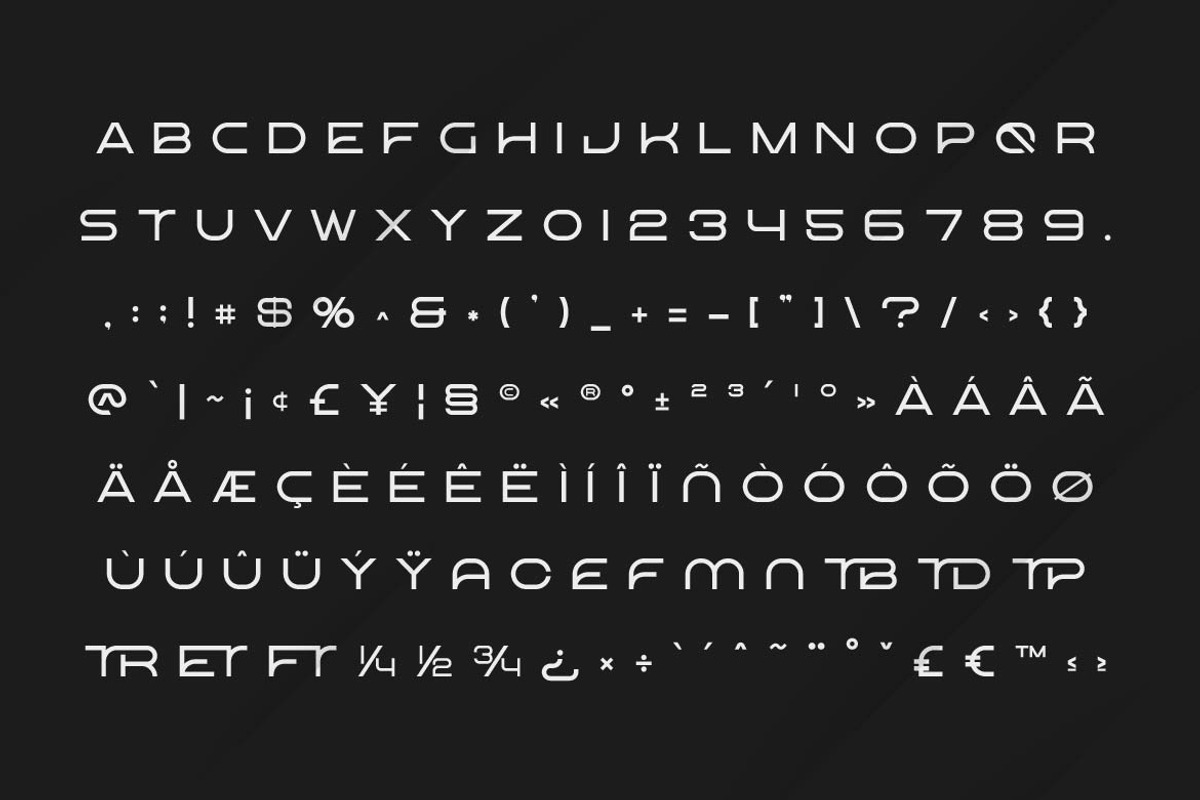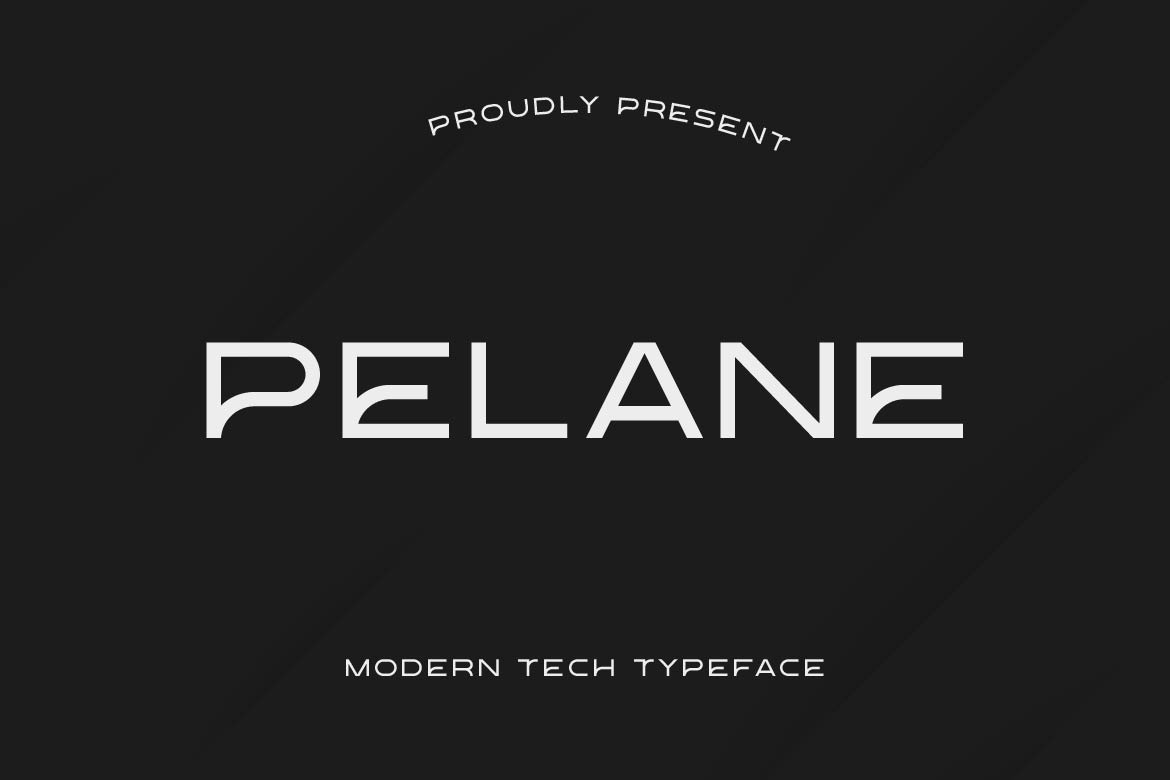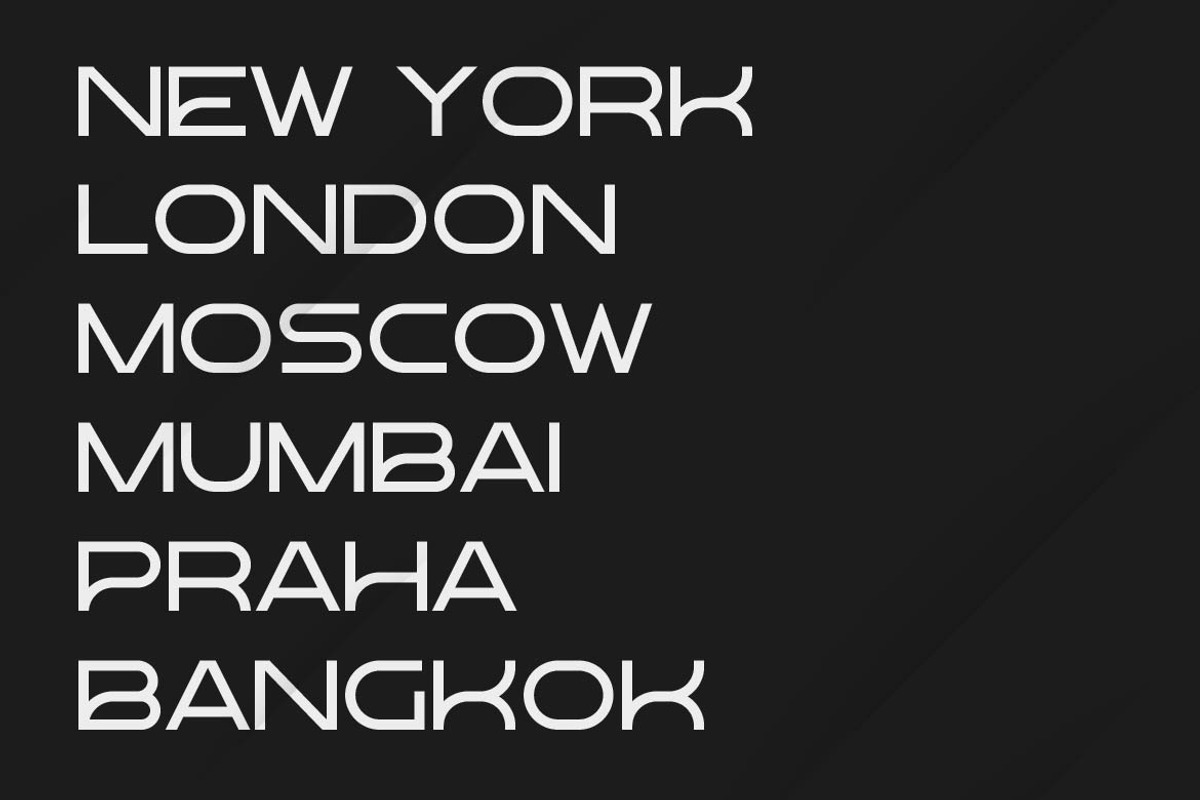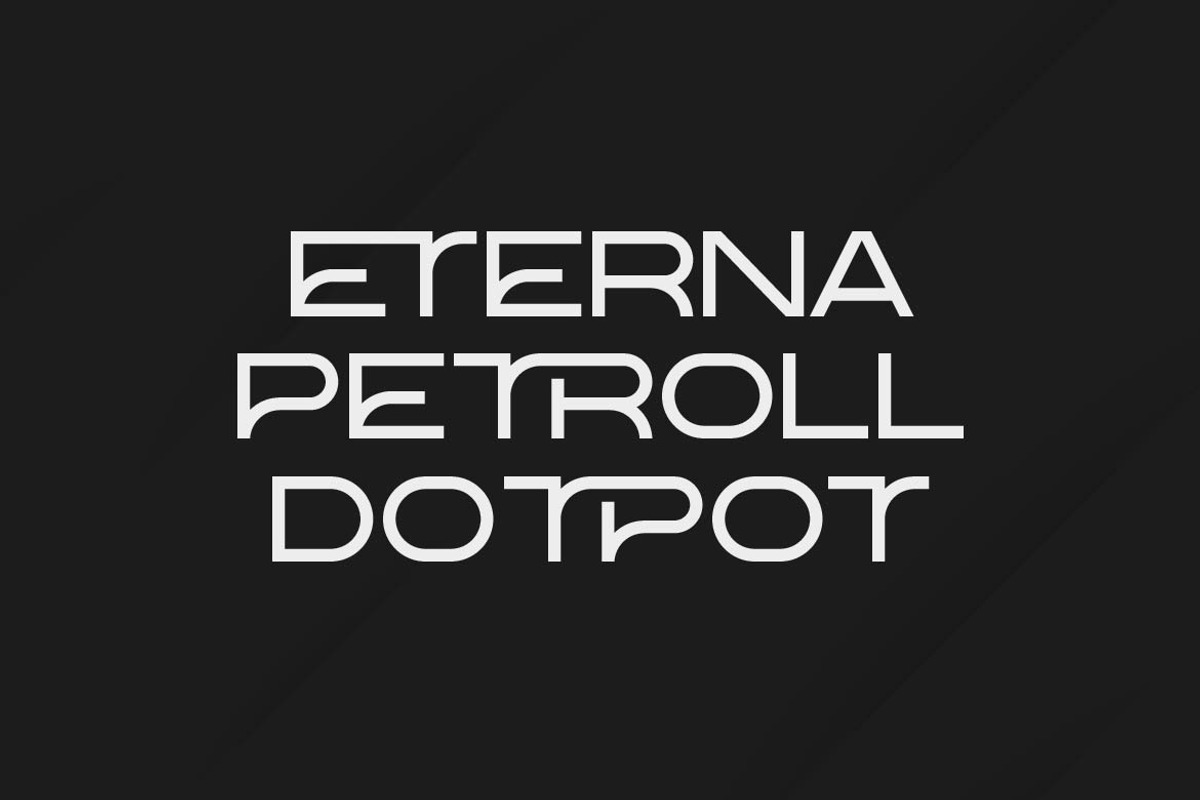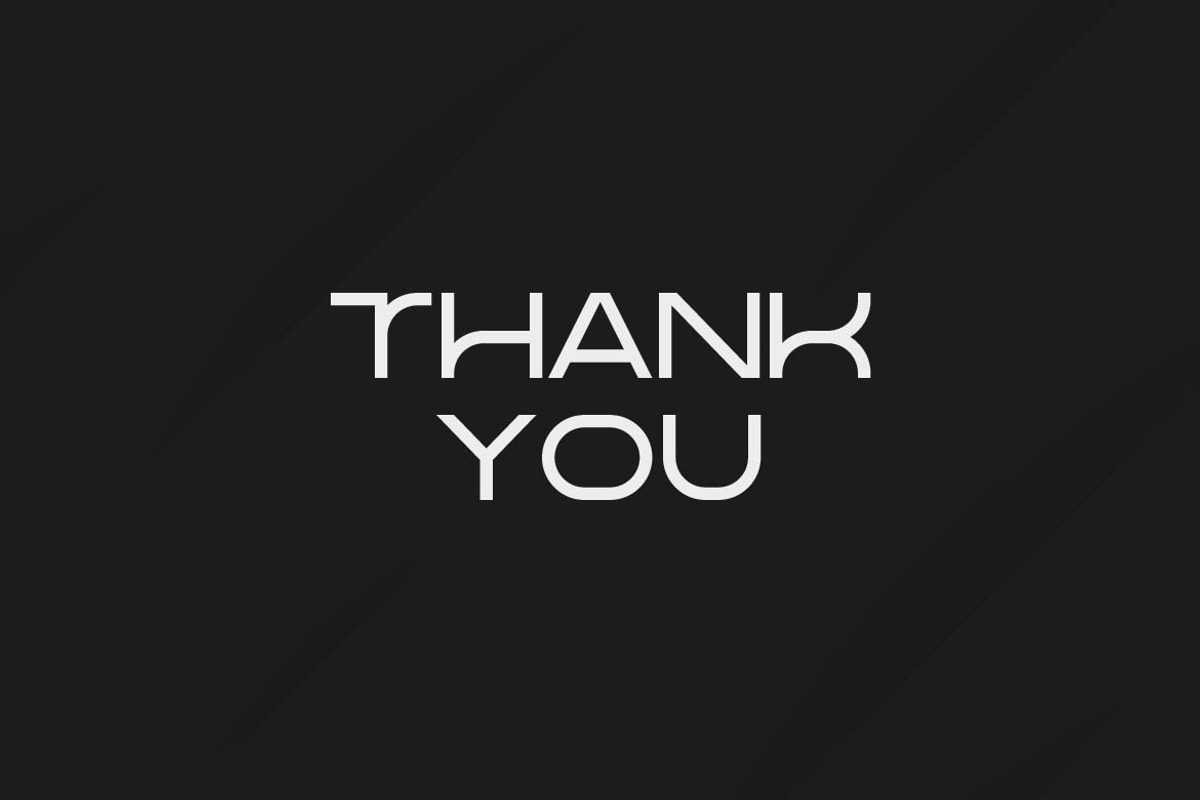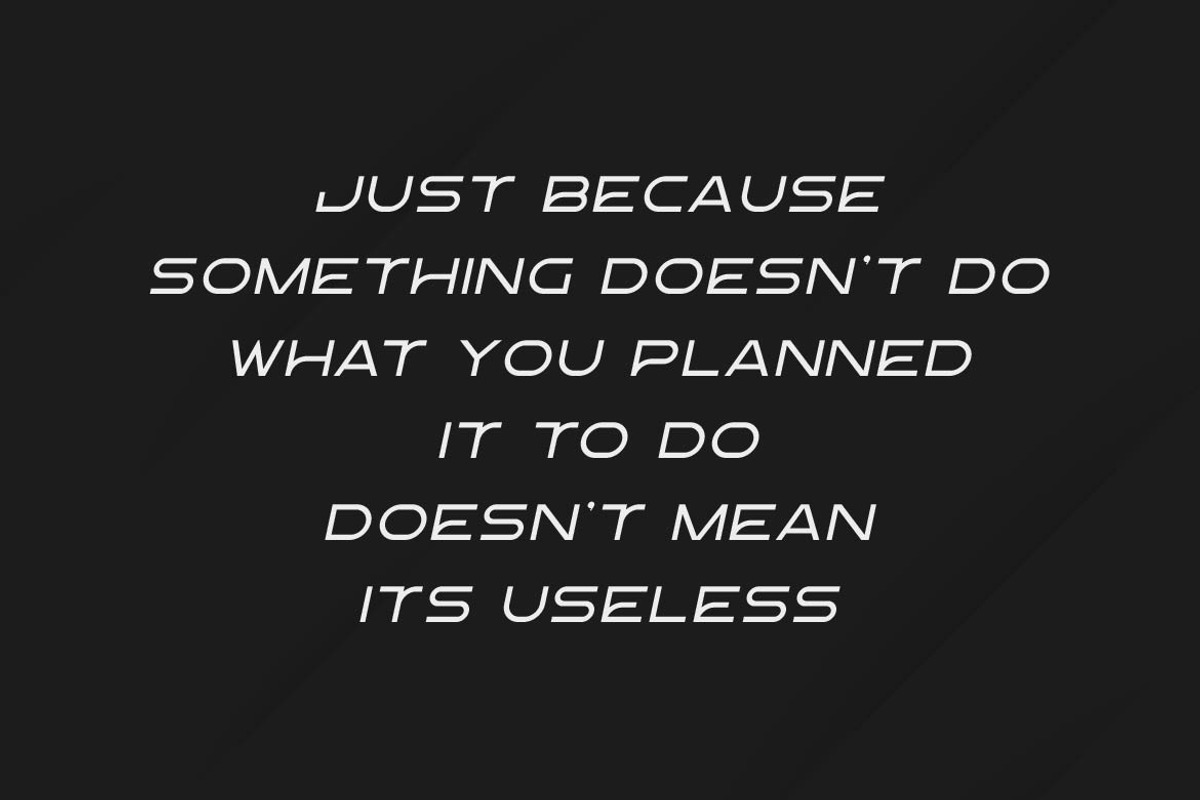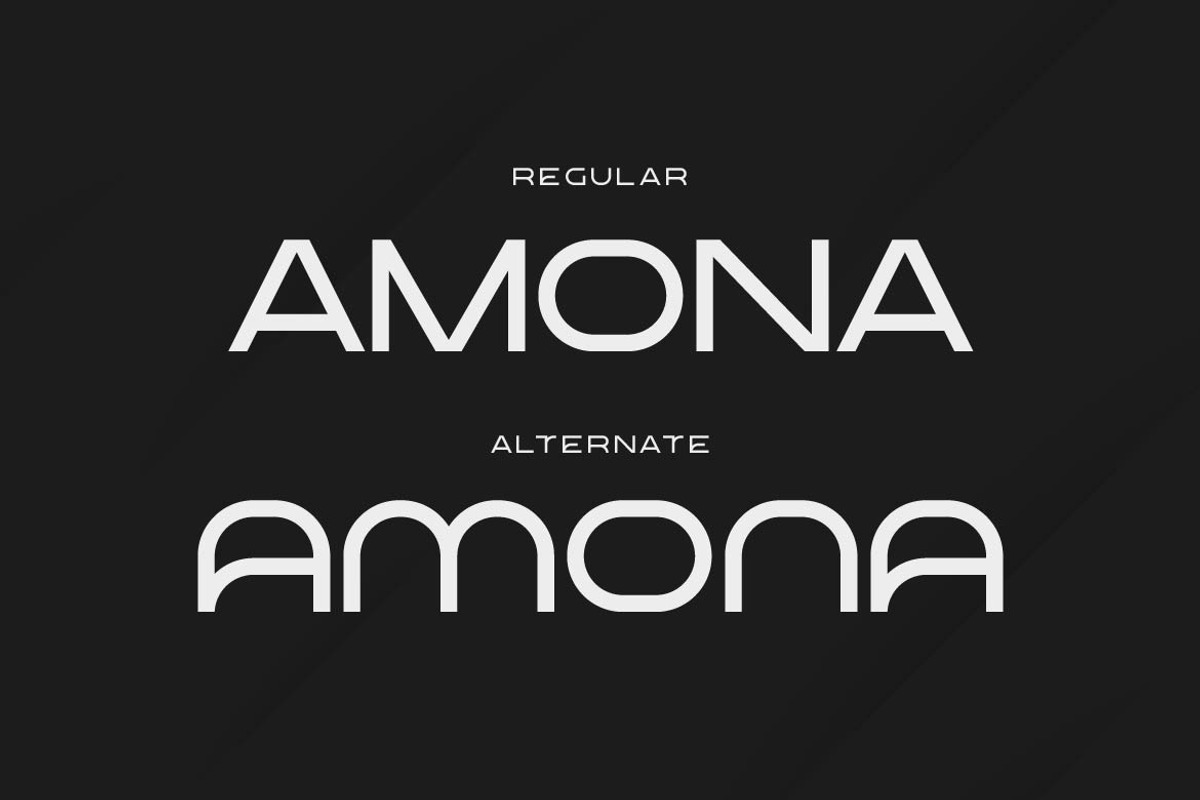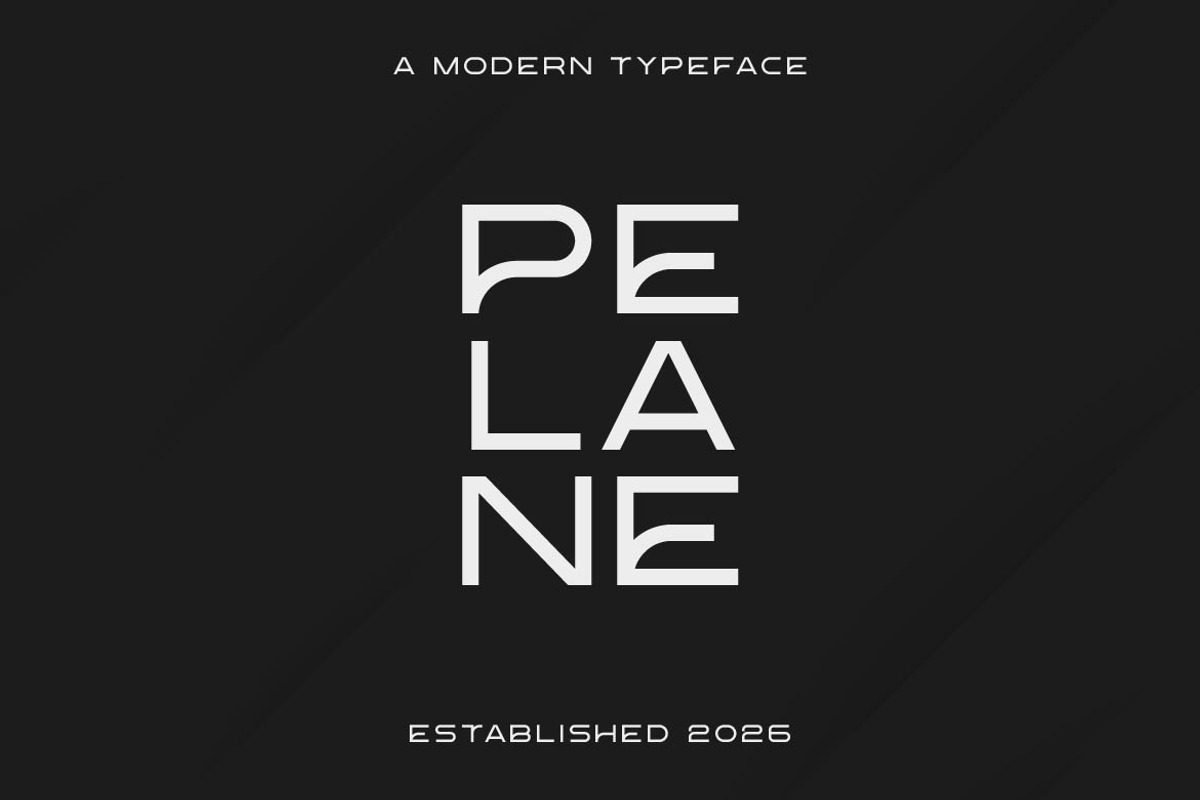
Pelane – Clean Tech Modern Typeface
Pelane is a modern technology-inspired sans serif typeface designed with smart ligatures and stylish alternates to give your typography a unique digital personality. Built for the future of design, Pelane combines clean geometry, sharp structure, and smooth rhythm—perfect for UI/UX, apps, websites, SaaS platforms, tech branding, and innovative visual systems.
What makes Pelane stand out is its rich OpenType features. With creative ligat